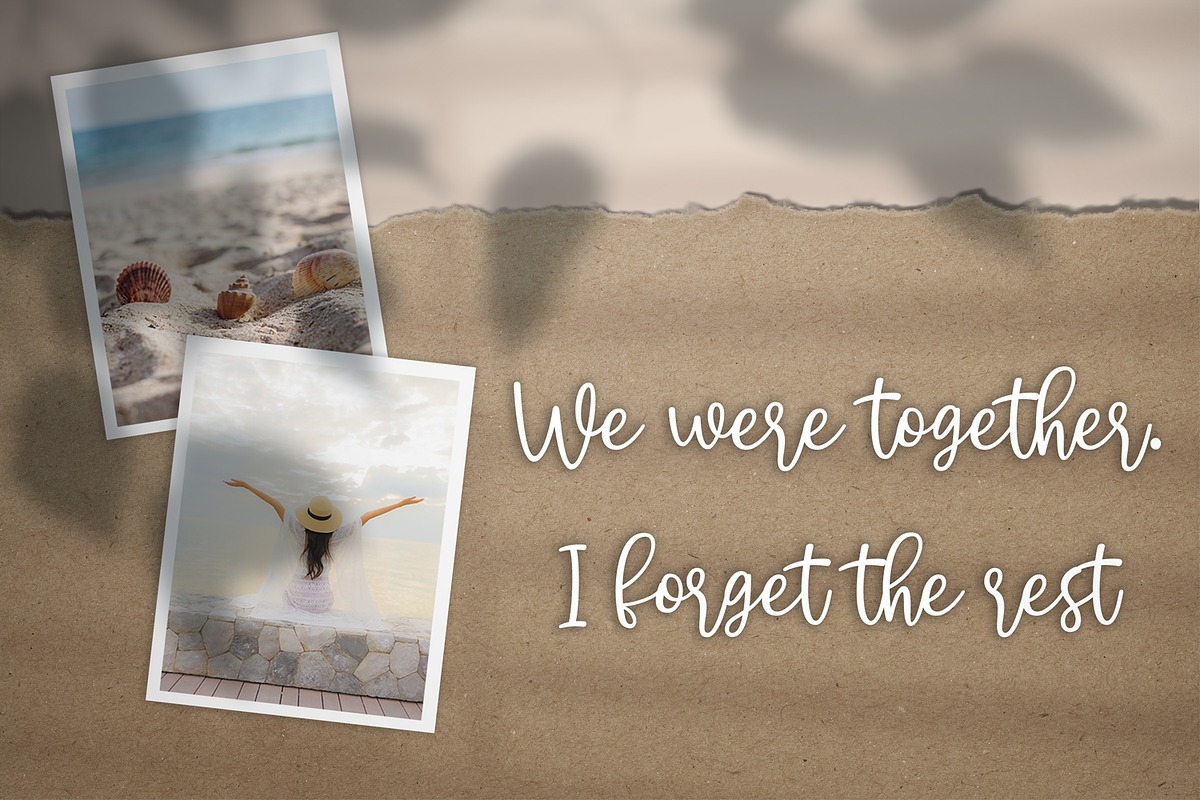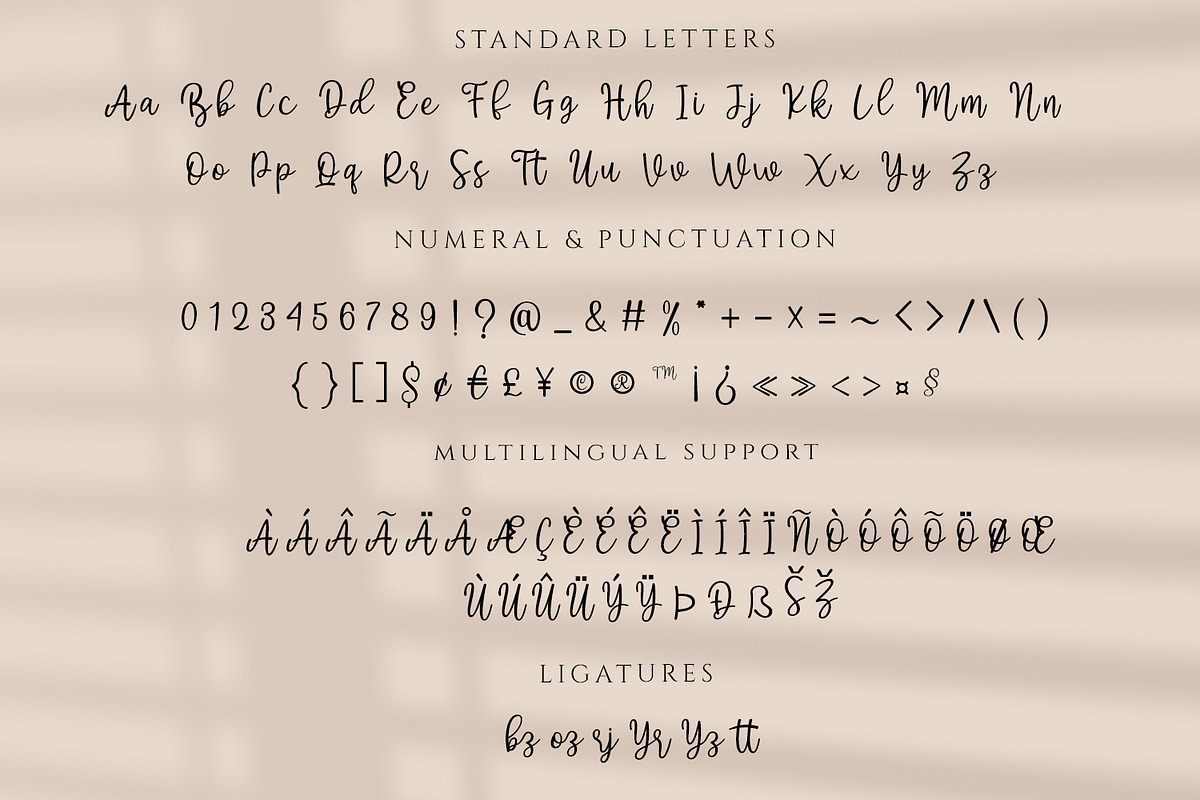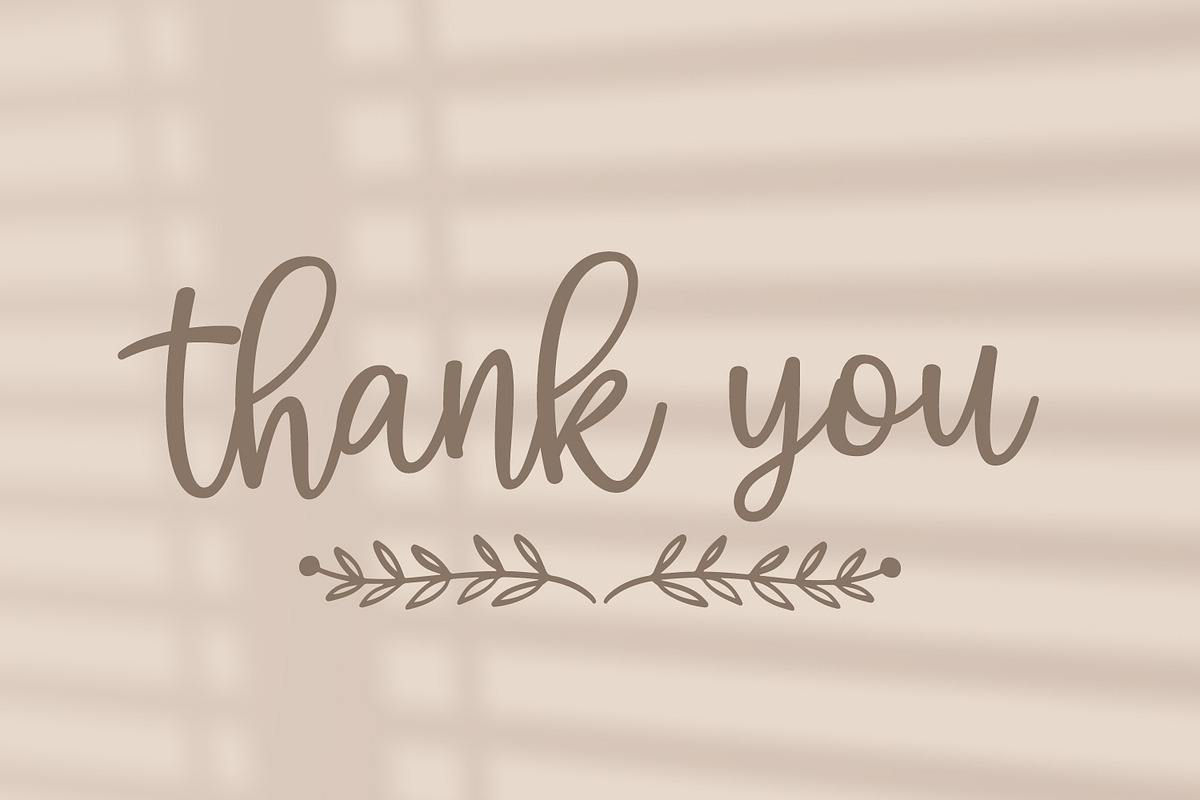
Dichigan - Modern Calligraphy Script
Dichigan is a modern beauty calligraphy font. Bravely will work perfectly for wedding, food, e-commerce brands, trend blogs, boutiques or any business that wants to appear upscale and sweet.
- Contextual Alternates
- Multilingual characters (AÀÁÂÃÄÅÇEÈÉÊËIÌÍÎÏNÑOØÒÓÔÕÖUÙÜÚÛÝŸÆŒß)